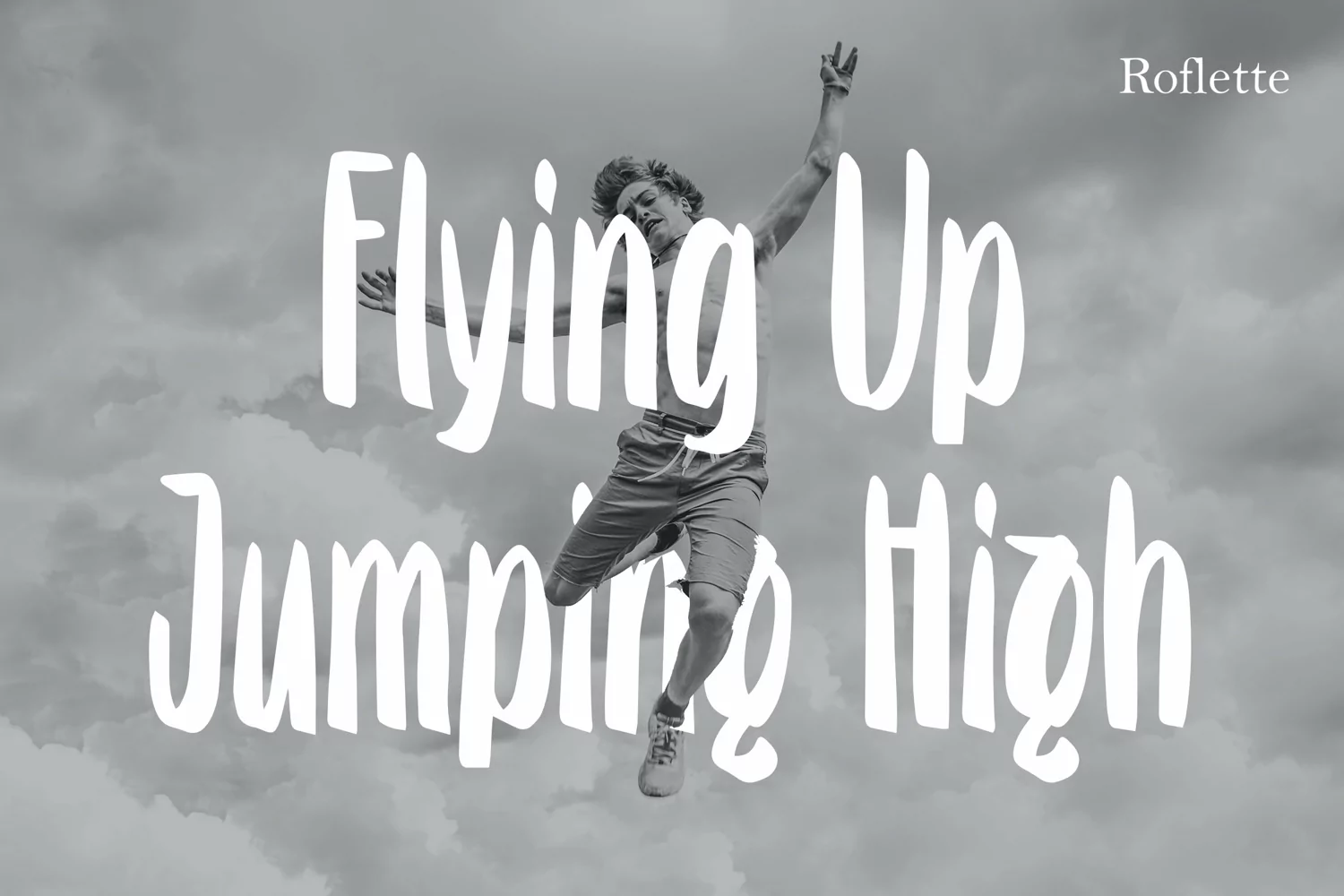
Roflette - A Handlettering Font that contain lowercase, uppercase, symbol, and also support multi language. There’s a lot ligatures in this font. This Font also comes with ligatures, alternates and many more. this font suitable for fashion, branding, catalog and other design what you want.